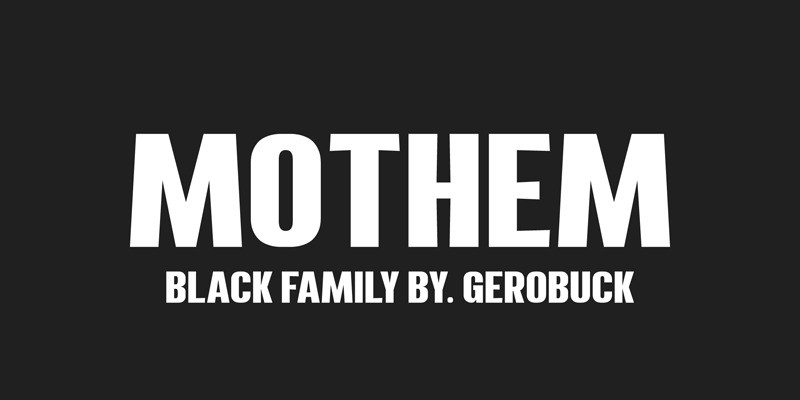
Grab our new font, Mothem Sans Serif Font, will give you anything but! It’s able to add a little bang and sophistication to your work and also hold its own around those pretty scripts!